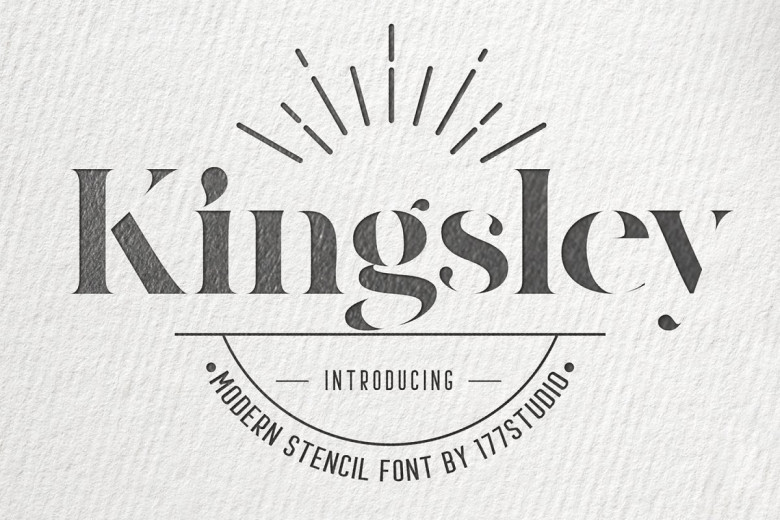
Kingsley Modern Serif Stencil Font
Kingsley Modern Serif Font is a very feminine and very legible serif stencil font, delicacy and elegance are the words that best characterize this font. It’s seduces the viewer in a subtle and elegant manner. That is perfect for blogging, fashion, art and much more.
Kingsley makes it perfect for posters, greeting cards, stationery design, magazine layouts, stickers and stencil design, prints, logotypes, branding, name card, stationary, design title, blog header, quotes, typography, headlines, packaging, presentations, titles, magazines, headings, web layouts, advertising, invitations, packaging design, books, and nearly any creative design.